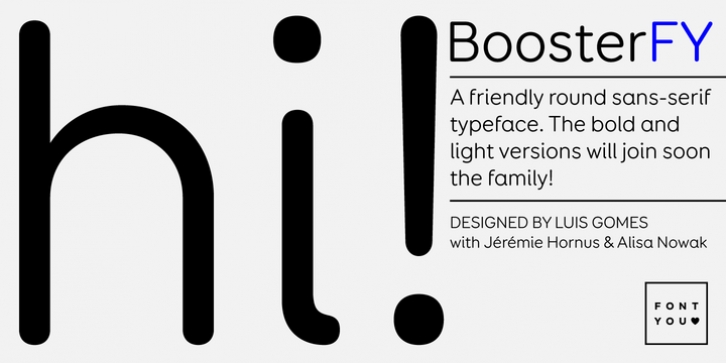
Jérémie Hornus,
Fontyou
Booster FY
is a friendly round sans-serif typeface. Due to its large width, this is a perfect typeface for Web or other Screen Applications. If
Booster FY
has just one weight for the moment, the bold and light versions will join soon the family!